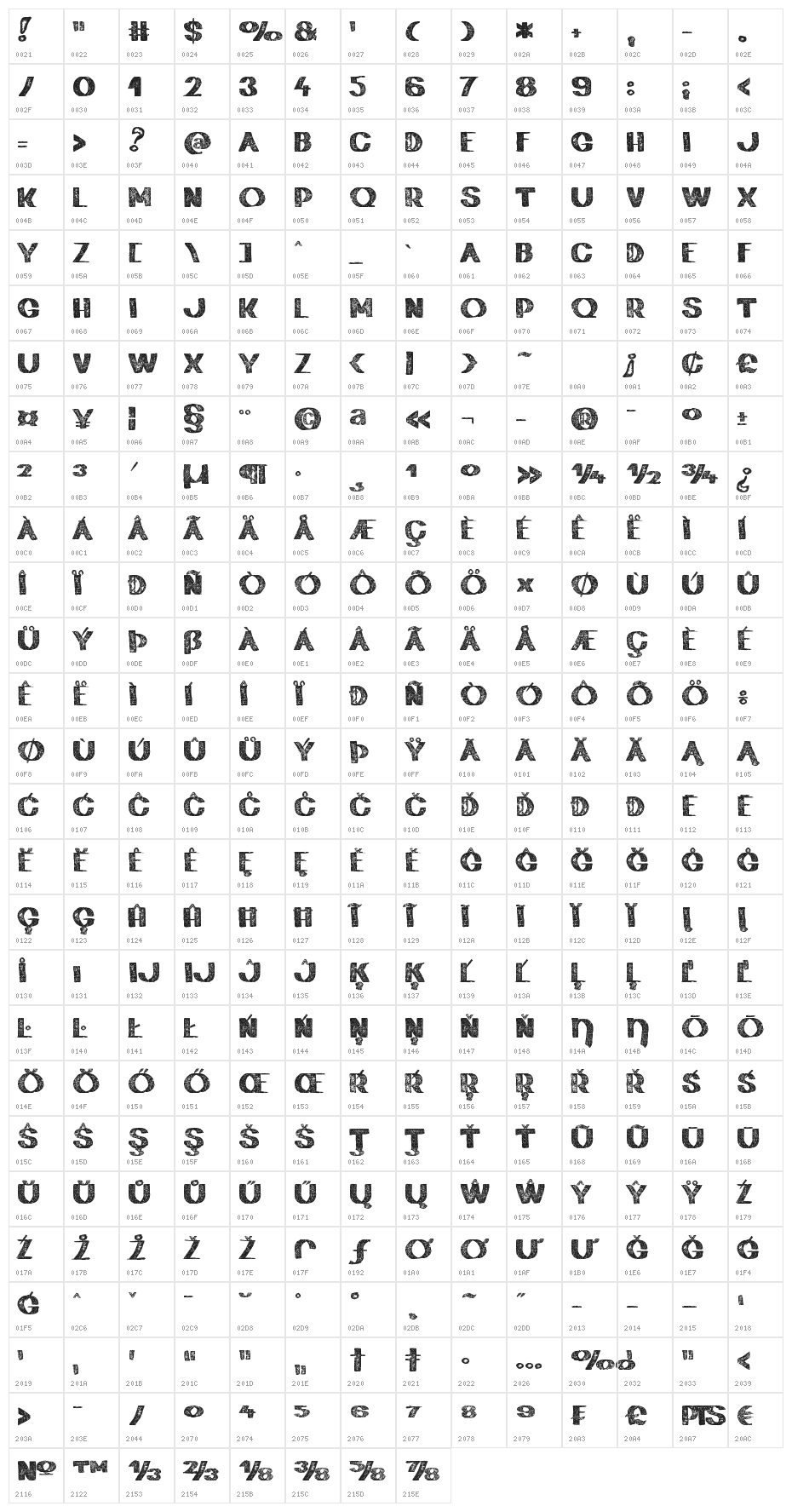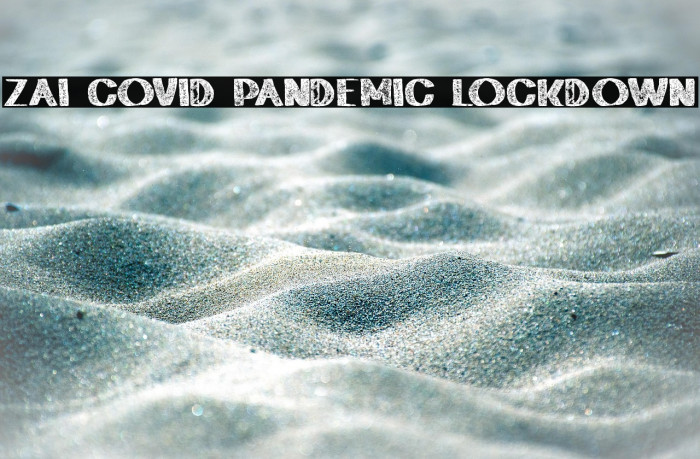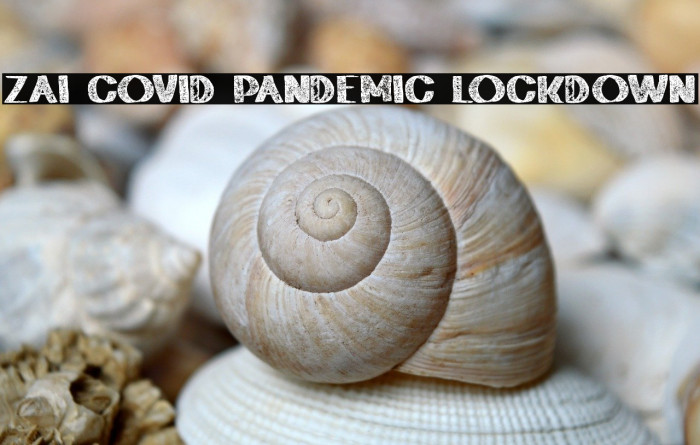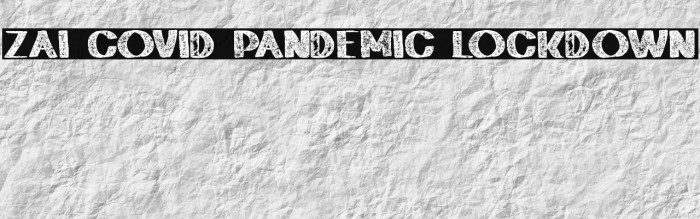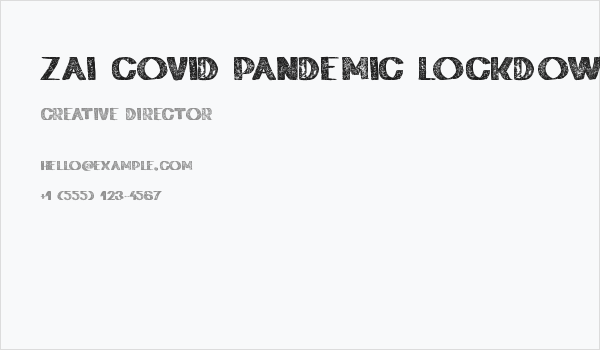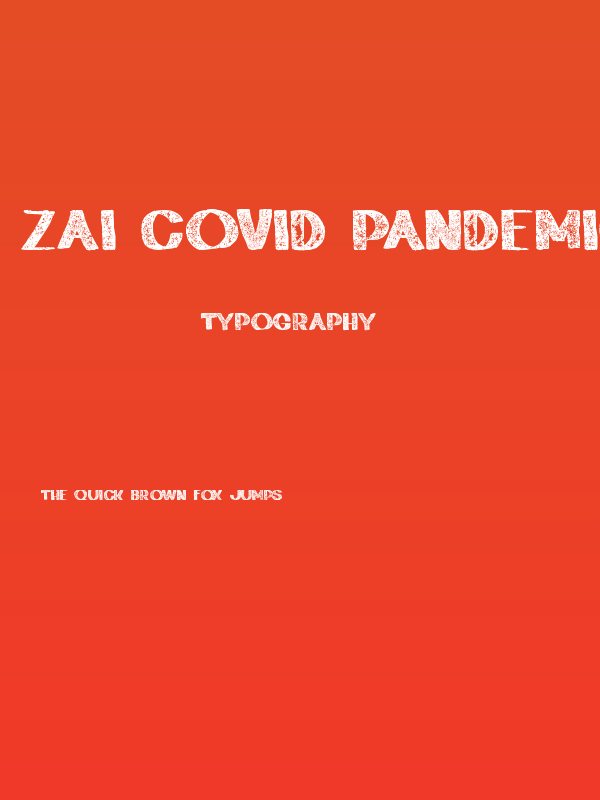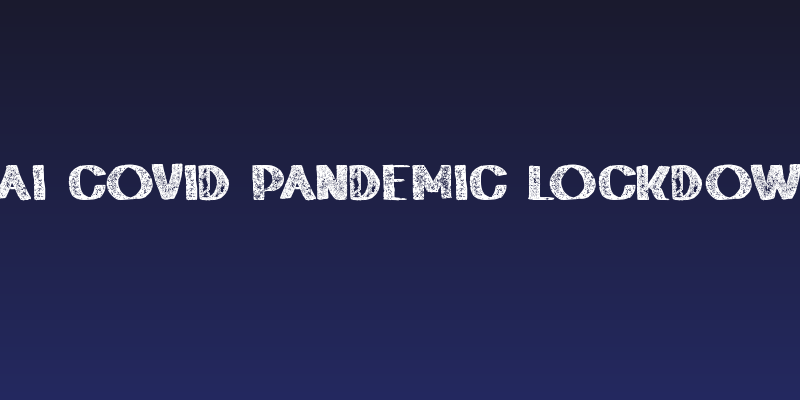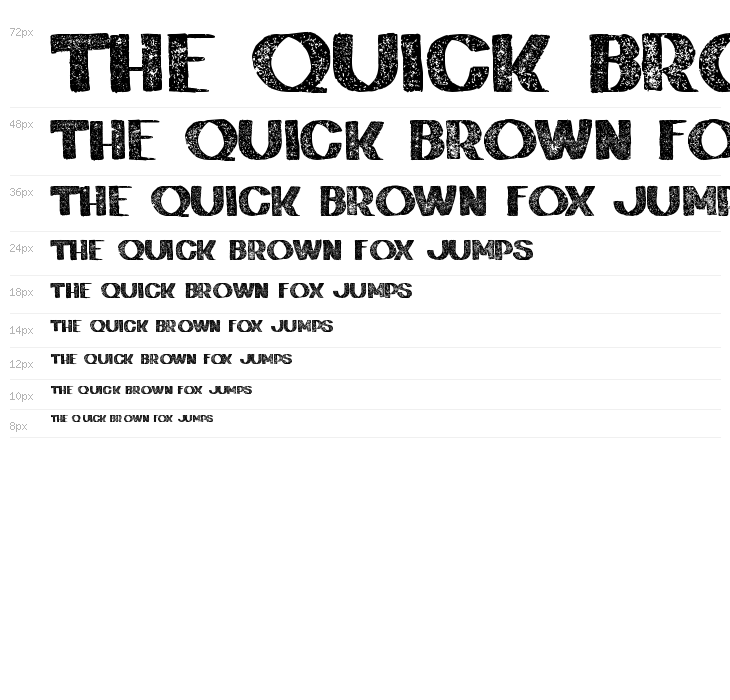
zai Covid Pandemic Lockdown Font
zai Covid Pandemic Lockdown Description
This font features a distressed, textured appearance that gives it a rugged and worn look. The characters are bold and impactful, with a rough, grunge-like texture that suggests a sense of urgency and edginess. The uppercase and lowercase letters maintain a consistent style, with slightly irregular edges that enhance the distressed effect. The numbers and special characters follow the same design, making the font cohesive across all elements. This style is reminiscent of vintage or industrial themes, suitable for projects that require a bold statement or a gritty aesthetic.
| Overall Style | Vintage, Industrial, Grunge |
| Proposed Projects | Ideal for posters, album covers, branding for edgy products, or any design needing a vintage or industrial feel. |